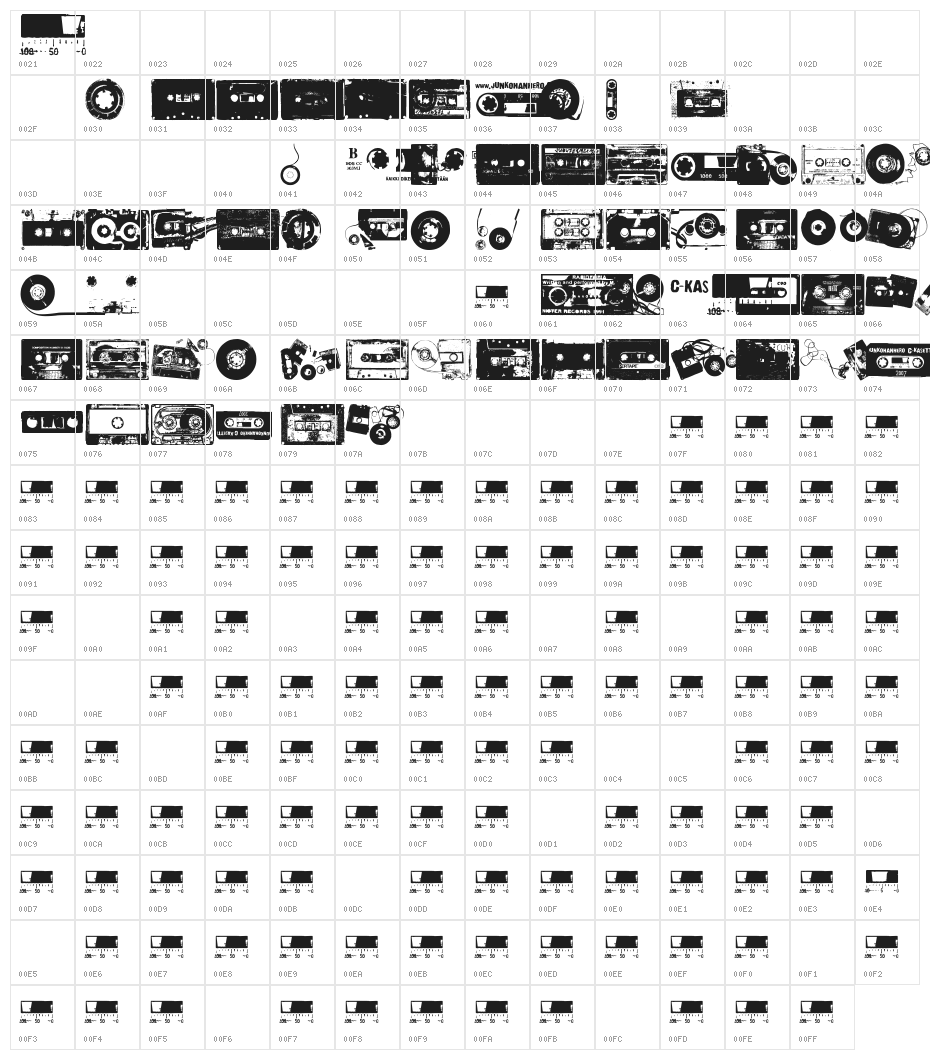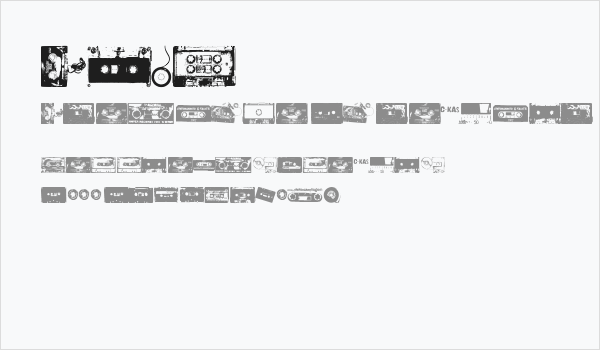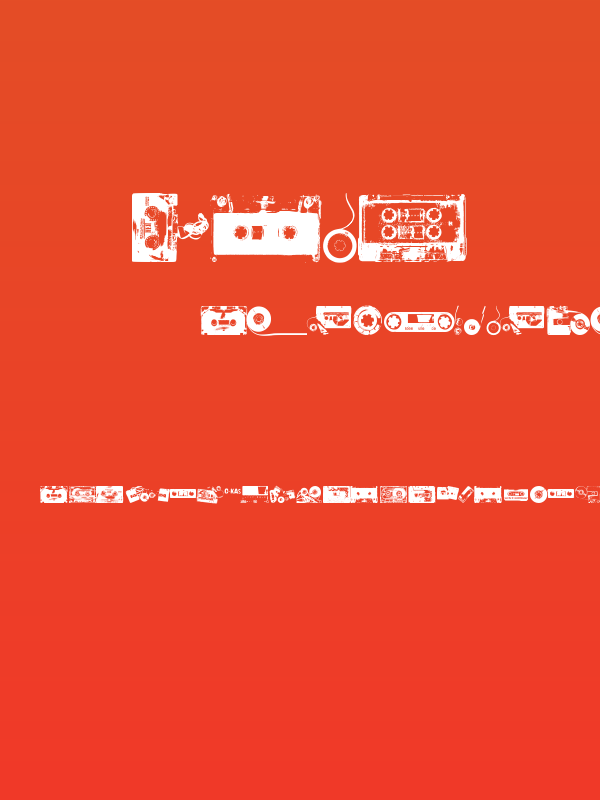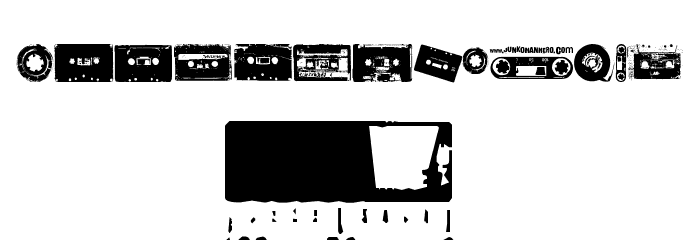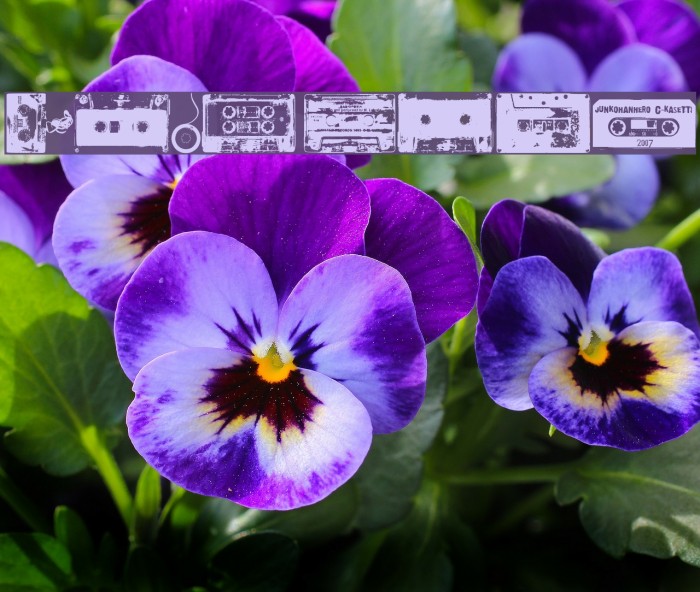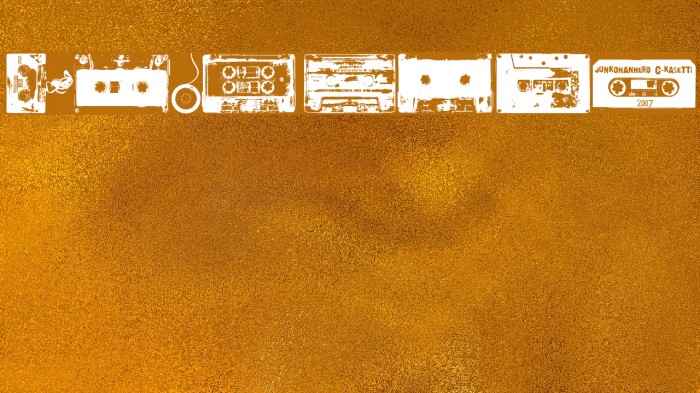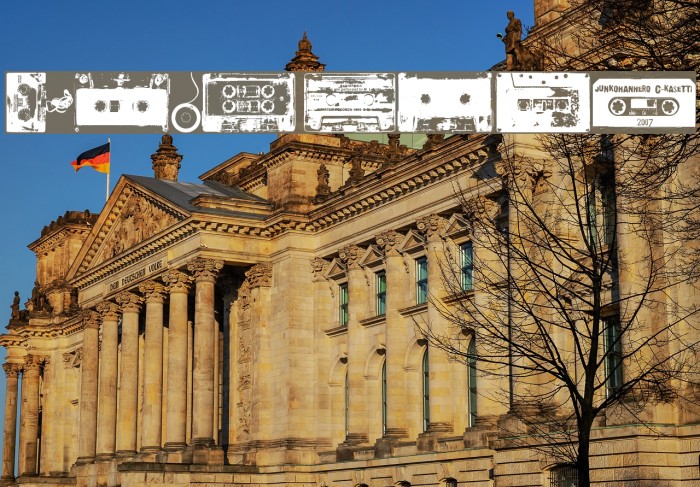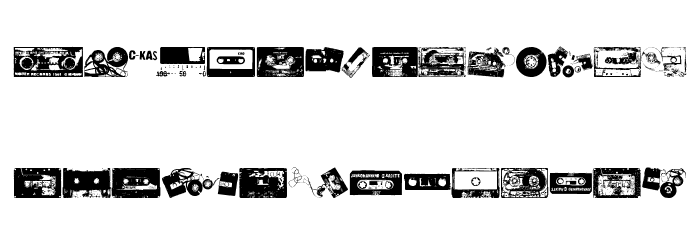
CKAS Font
CKAS Description
A decorative font composed of various cassette tape illustrations, creating a unique and nostalgic look.
| Use Case | Logos, Headlines |
| Proposed Projects | Music-themed posters, retro designs, album covers. |